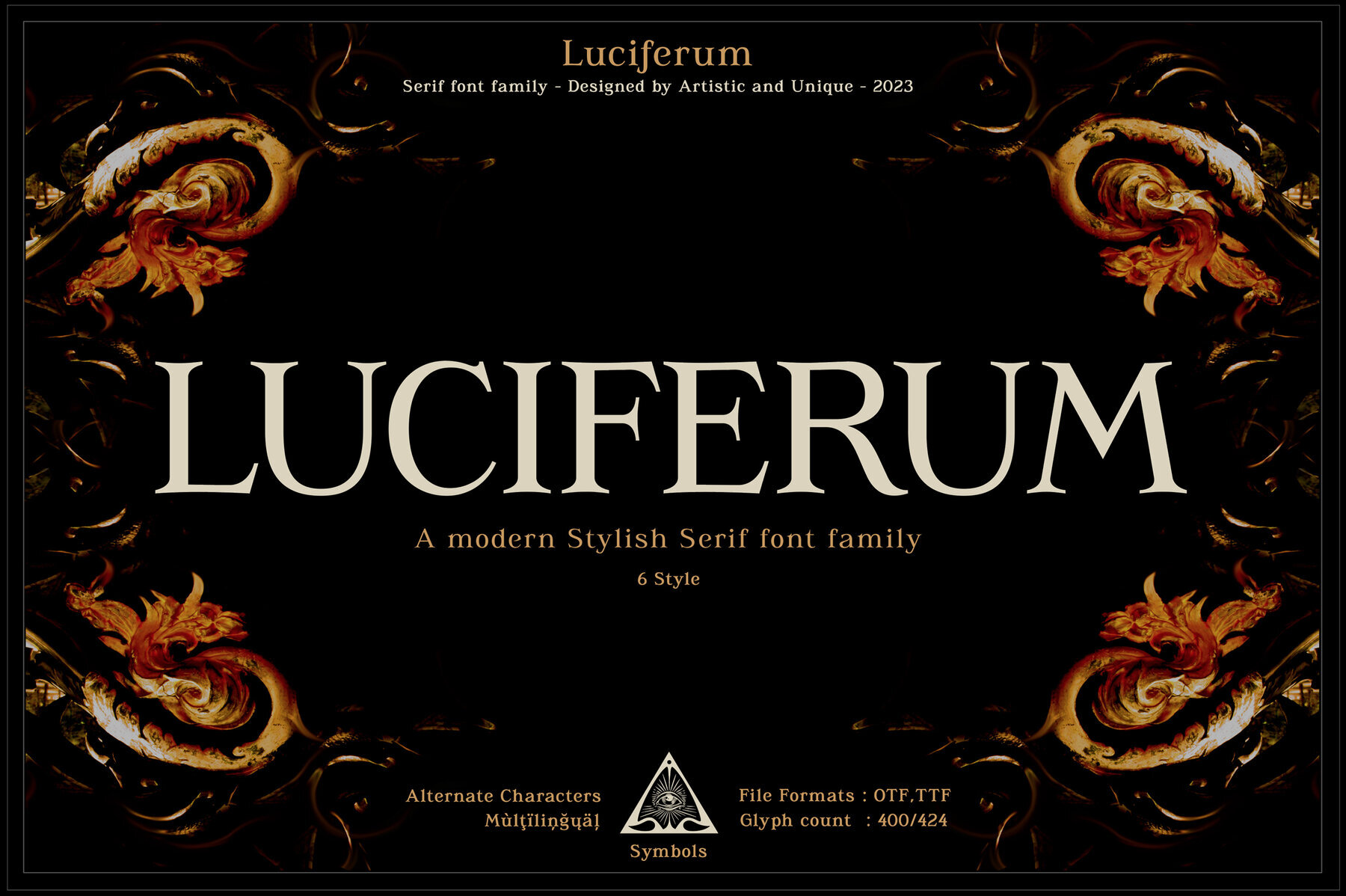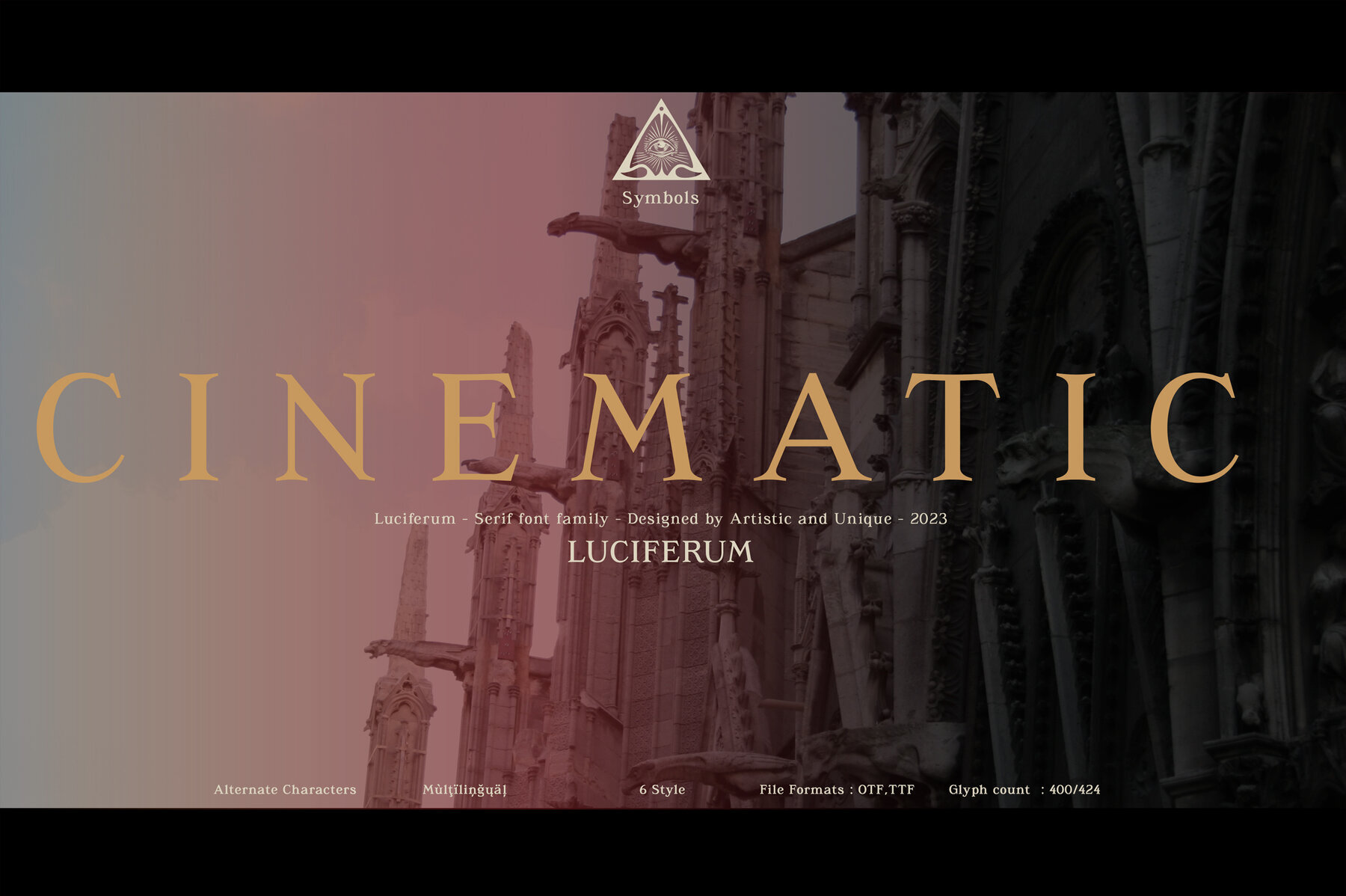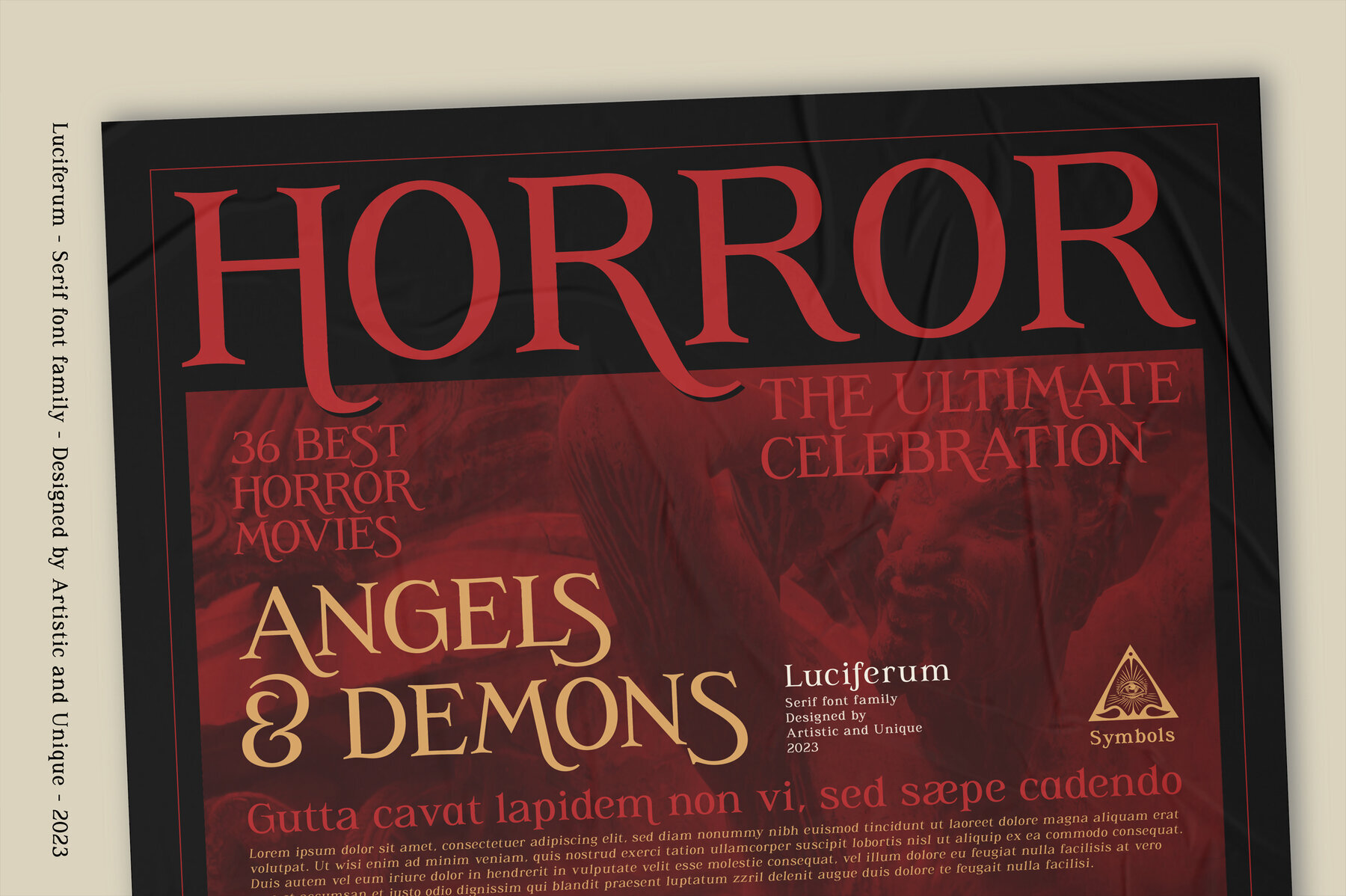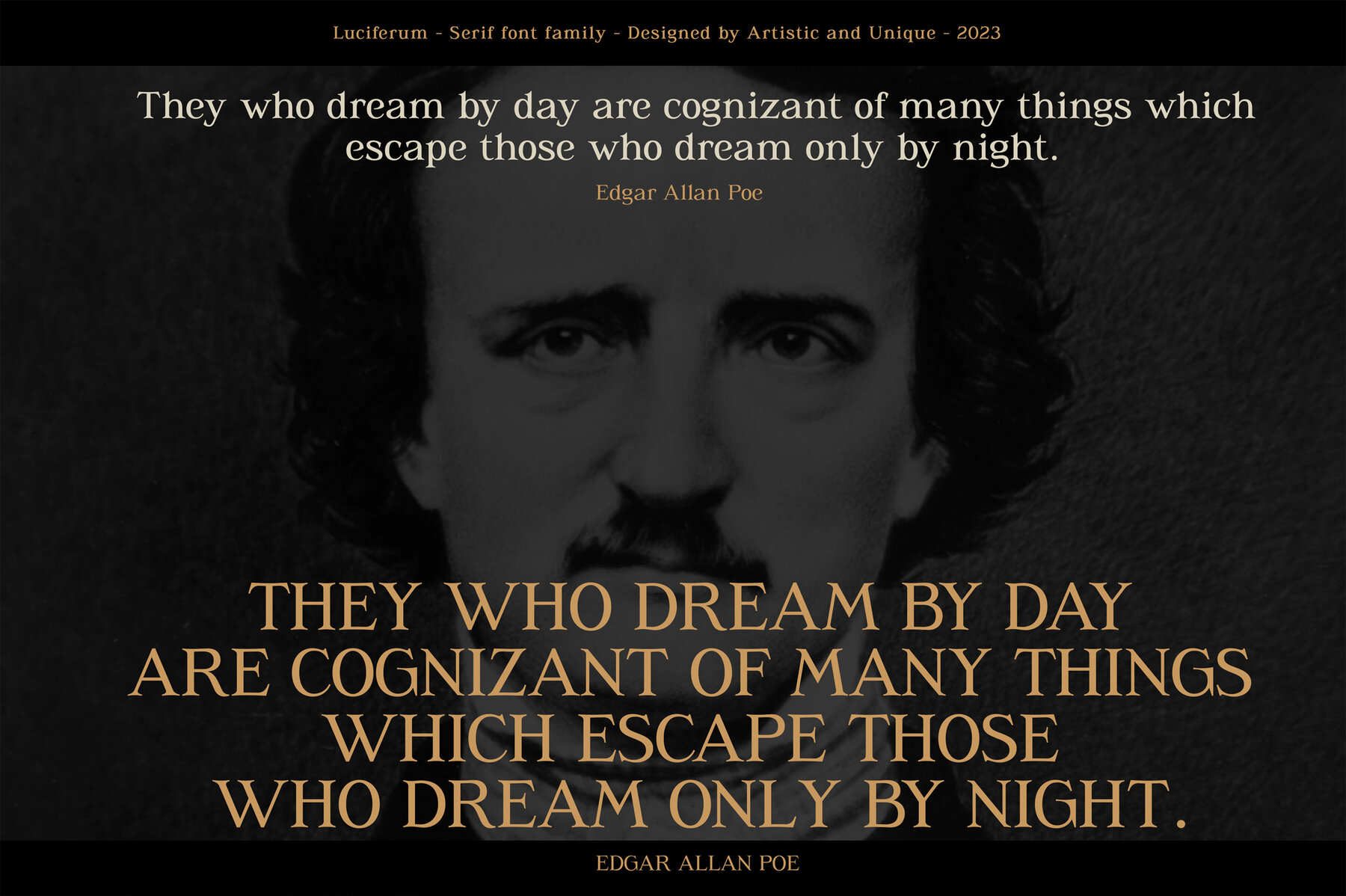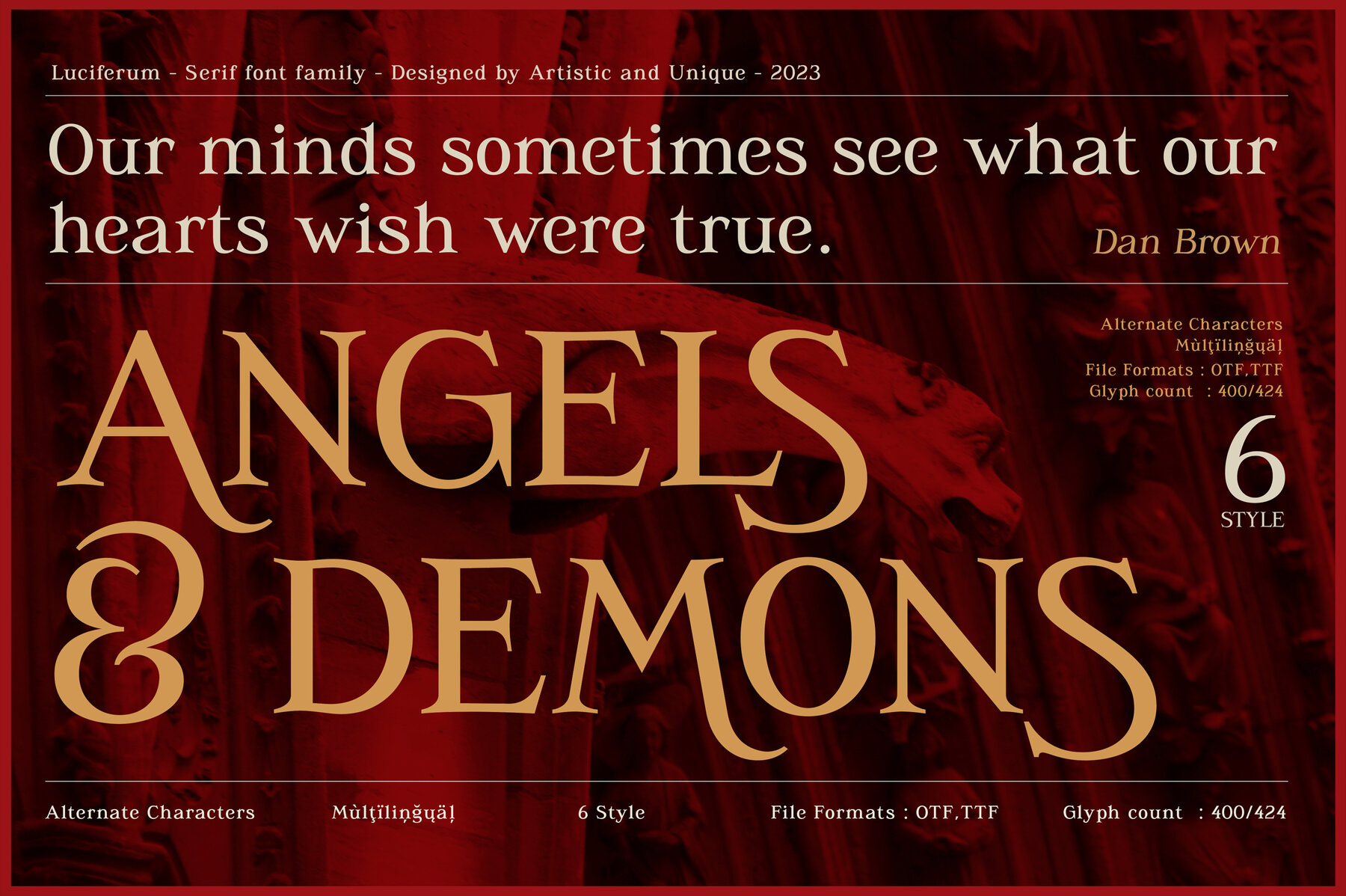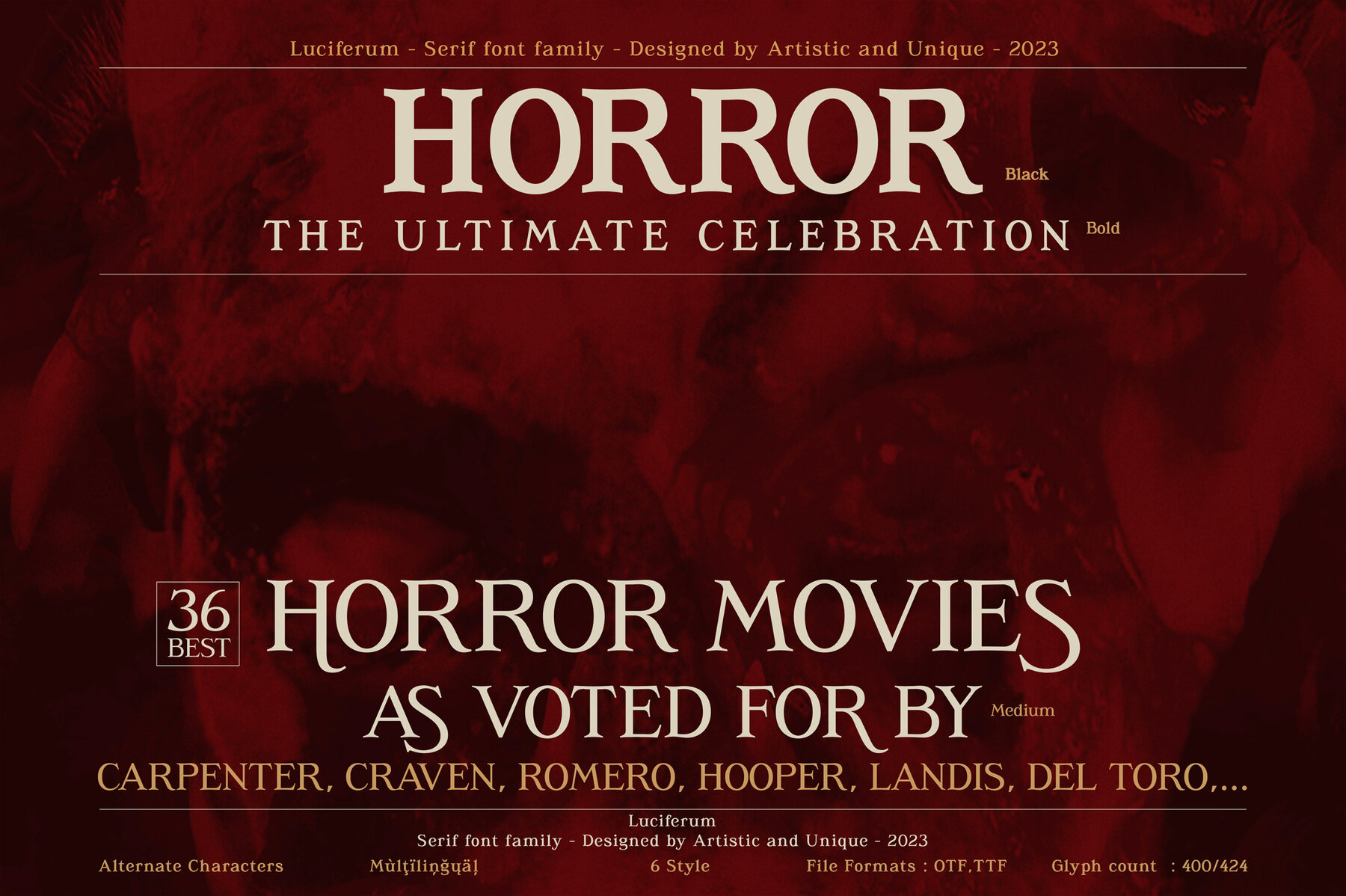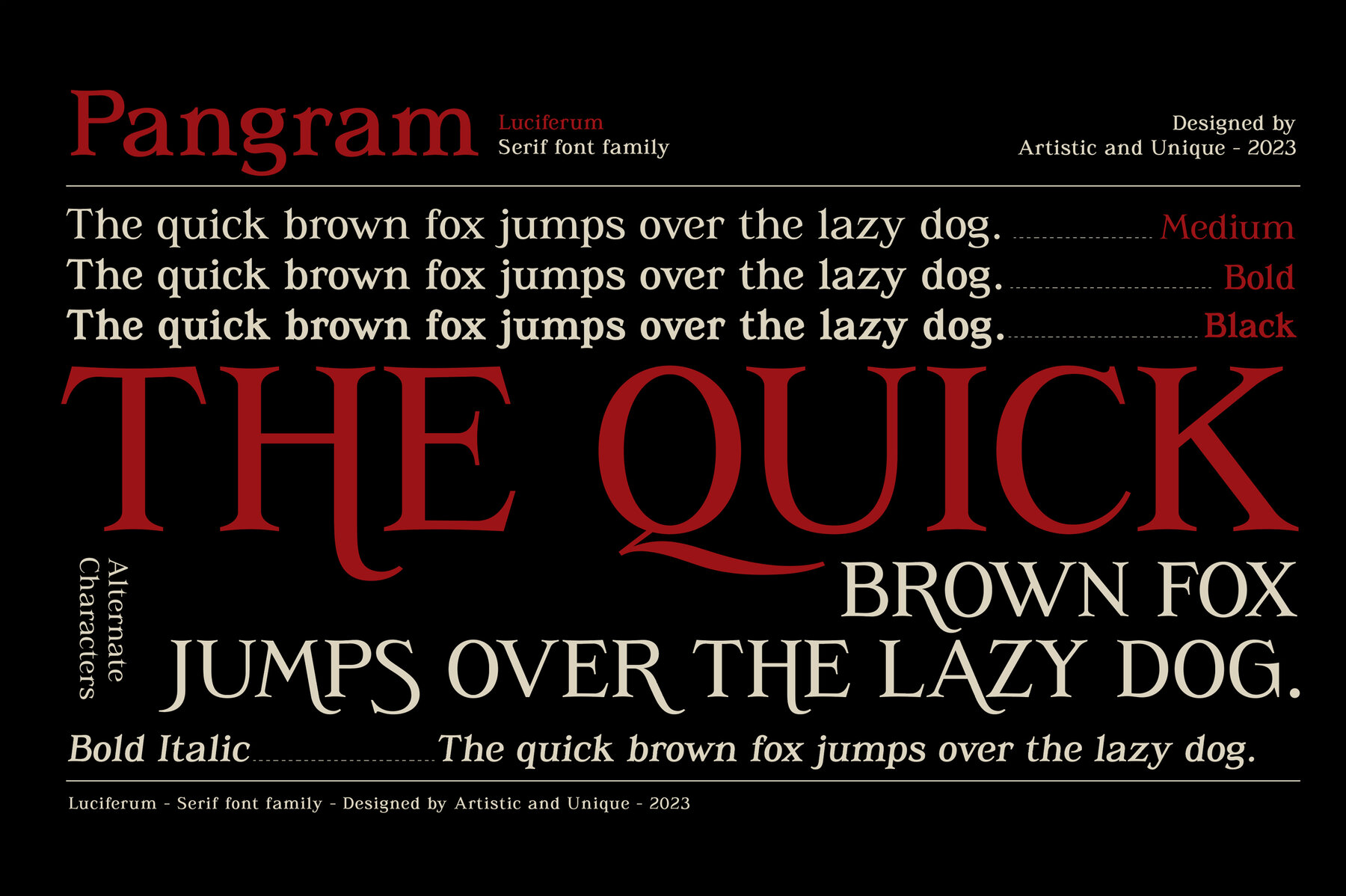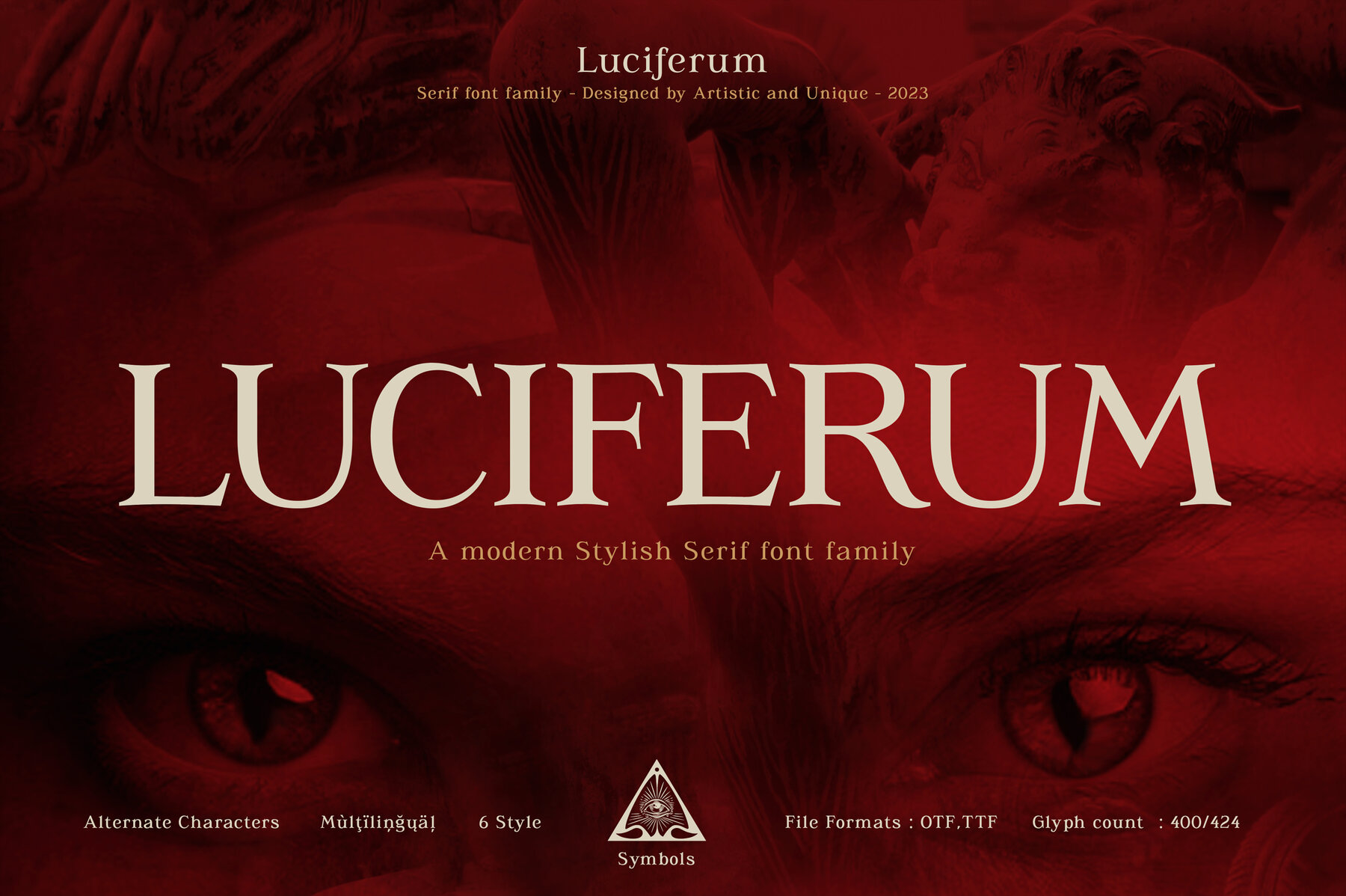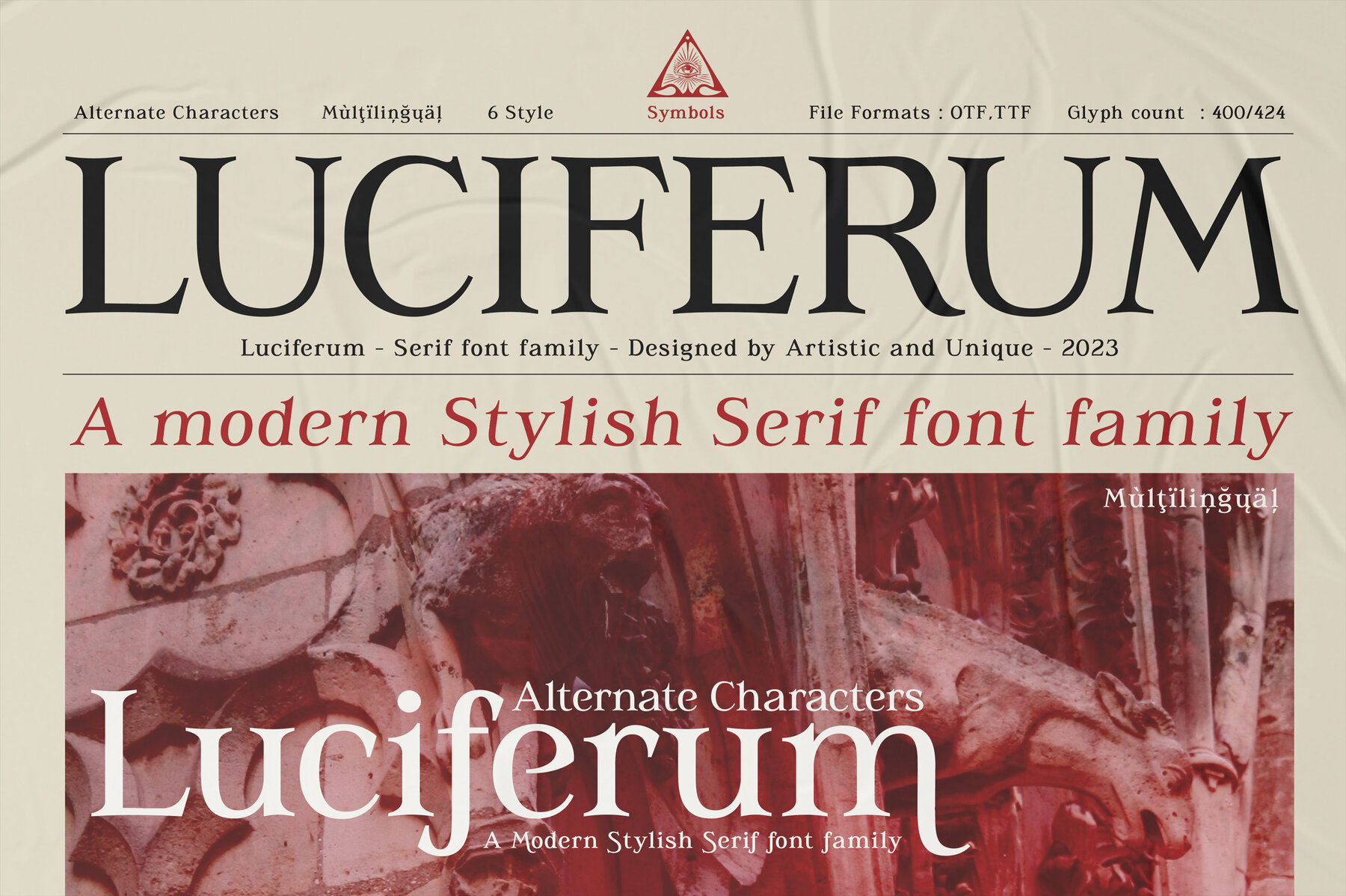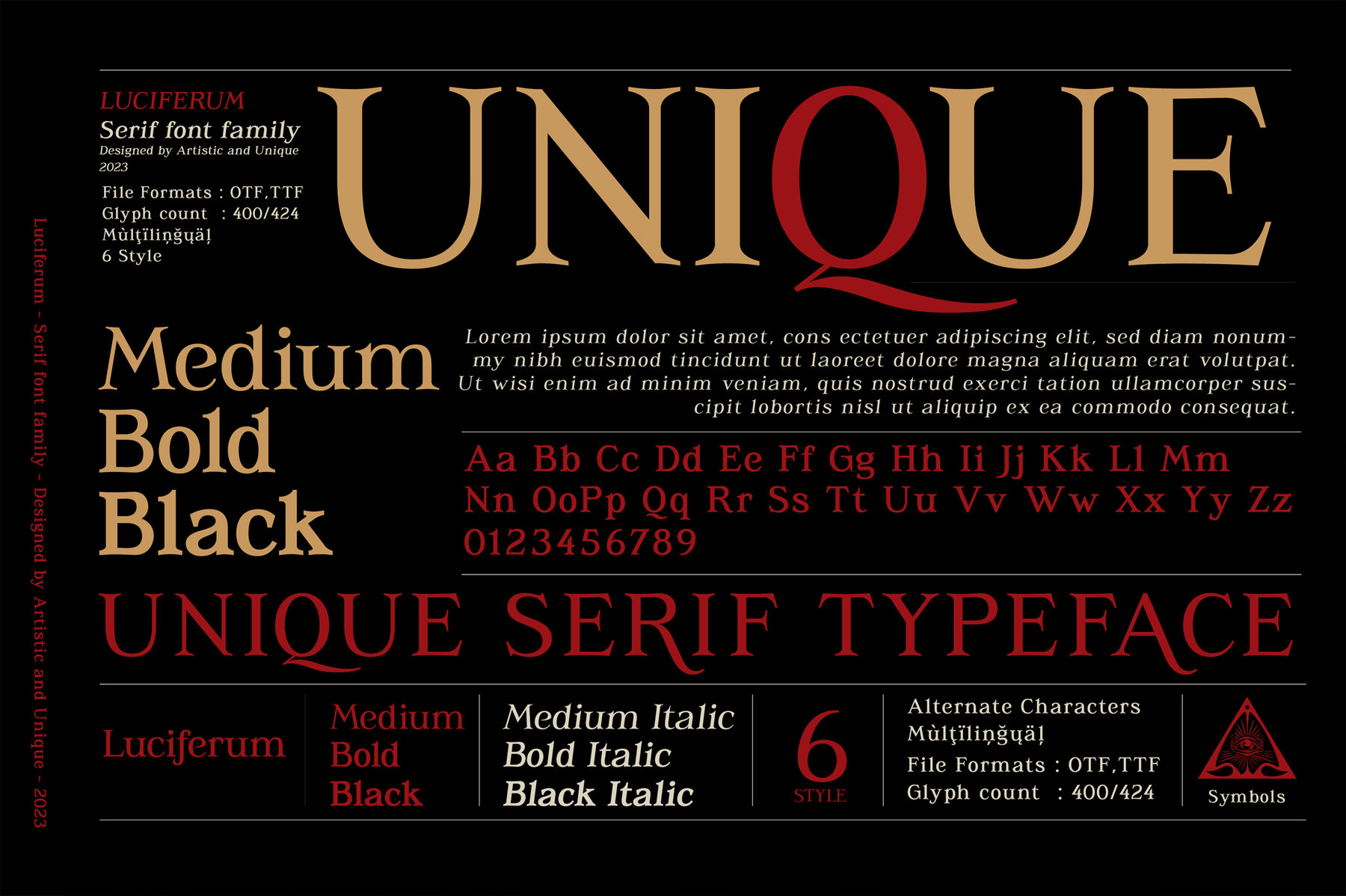
Luciferum Font
Luciferum presents a stylish serif font family that delivers a distinct aesthetic suited for horror-themed designs. Renowned for its alternative character designs, the font excels in projects like novels, movies, and posters that seek an evocative and rich typographic identity. Its multiple language support and six styles provide versatility across various design domains, enriching projects with its array of glyph options and alternative characters. Titles in books, and logos for branding purposes, benefit greatly from its well-crafted structure.Luciferum: Distinctive Serif Font Family with Multiple Styles
Luciferum serif font offers the distinct stylistic alternatives needed to create compelling and memorable designs.